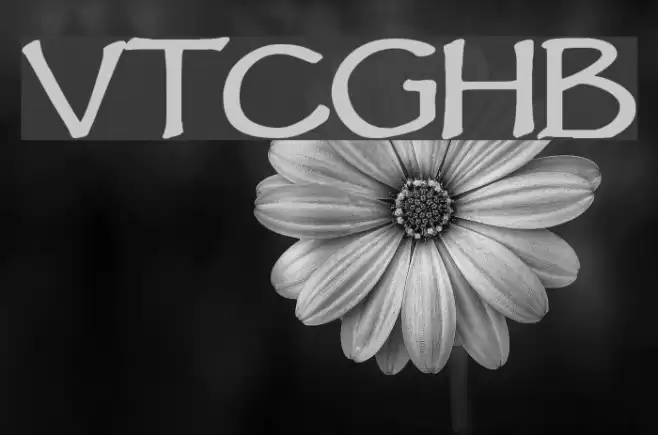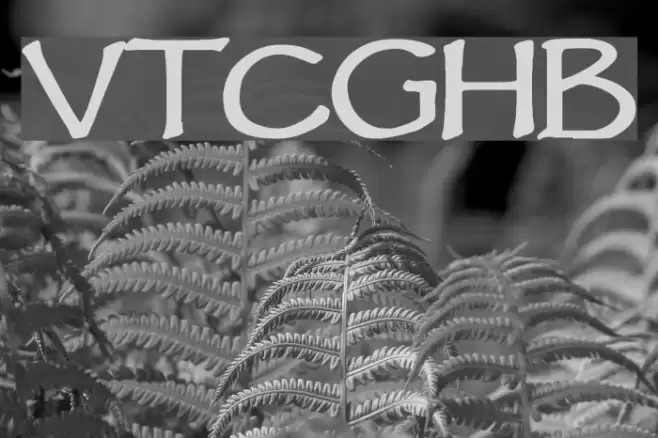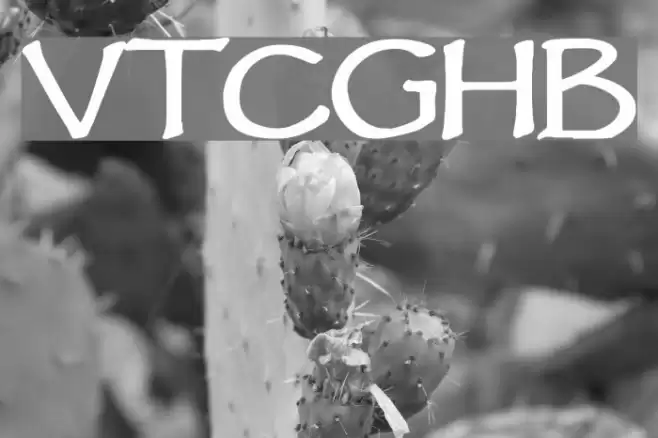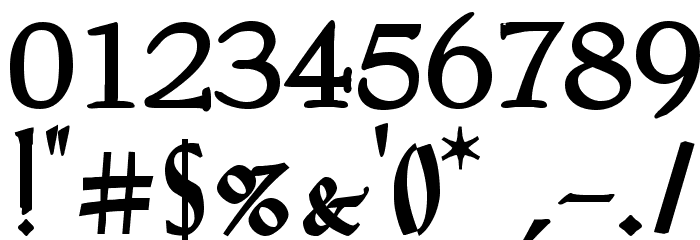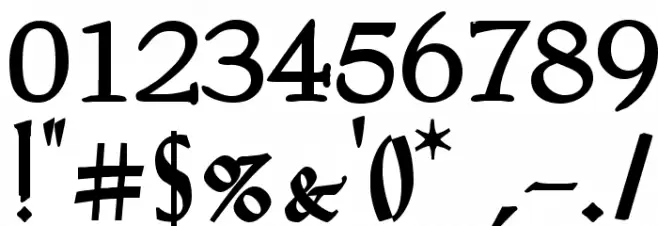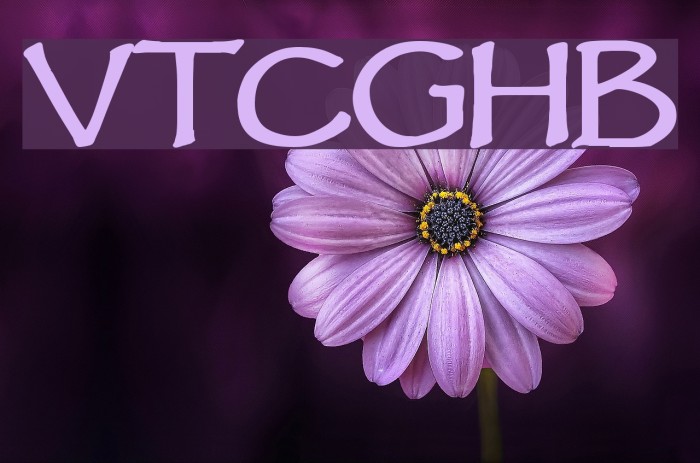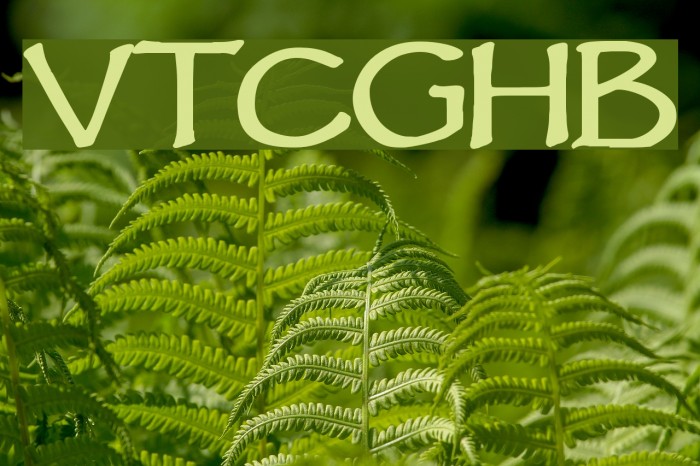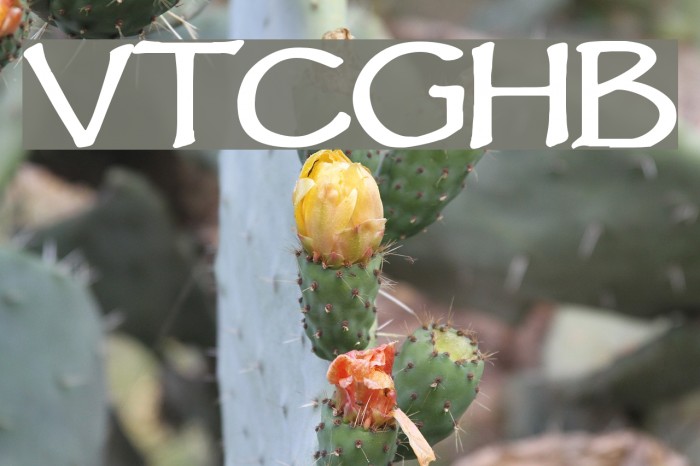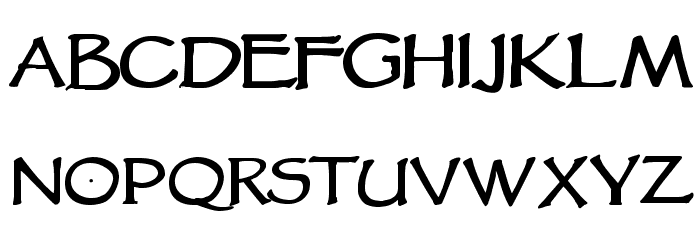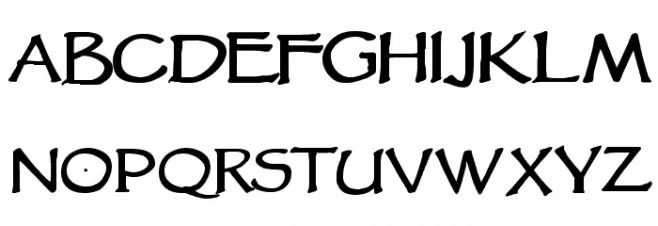
VTCGoblinHandBold Font
VTCGoblinHandBold Description
This font exhibits a bold and playful style with a hand-drawn appearance. The characters are slightly irregular, giving them a whimsical and organic feel. The strokes are thick and uneven, adding to the font's unique charm. The uppercase letters are bold and prominent, while the lowercase letters maintain a consistent style. The numerals are clear and distinct, matching the overall aesthetic. Special characters are creatively designed, enhancing the font's decorative appeal. This font is ideal for projects that require a touch of fantasy or a playful, informal tone.
A bold, playful font with a hand-drawn, whimsical style from Serif fonts.